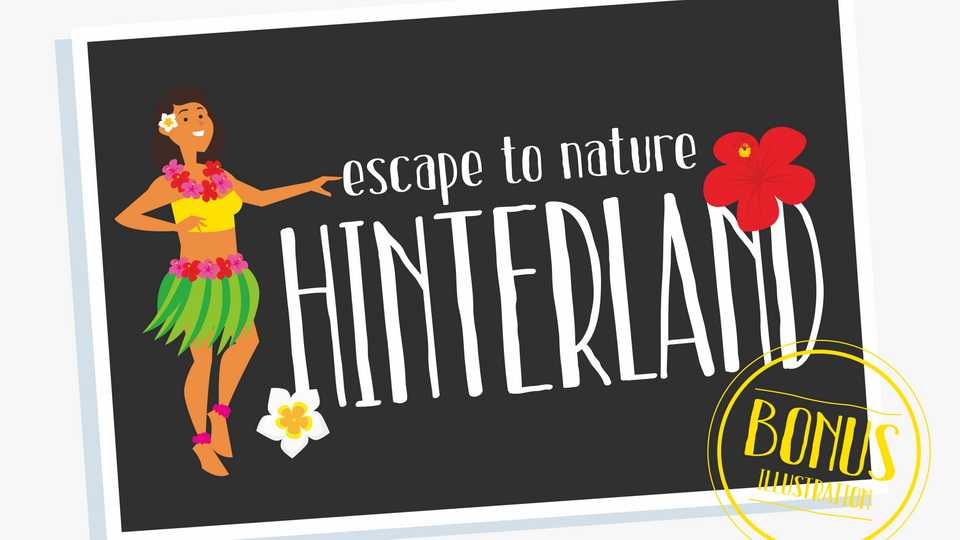
Download Hinterland – Escape to the Jungle font, a tall and skinny handwritten sans serif. Hinterland is great for headlines, posters, kids products, games, book covers and other crafts.